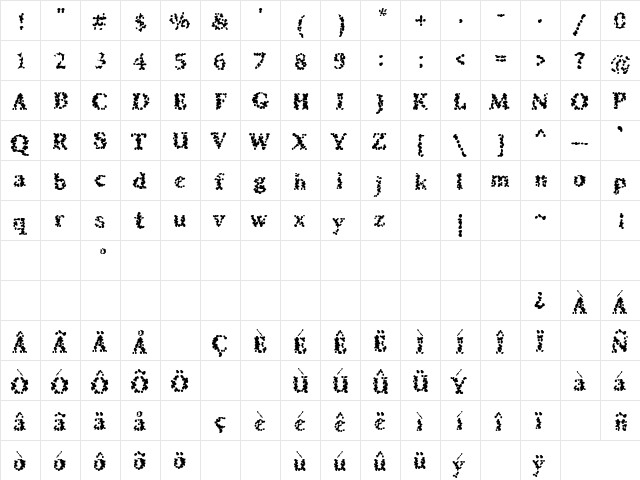
SibleyPotato Mashed
Design Context for SibleyPotato Typeface
SibleyPotato is a composed and adaptable typeface that performs quietly and consistently across a wide range of design contexts.